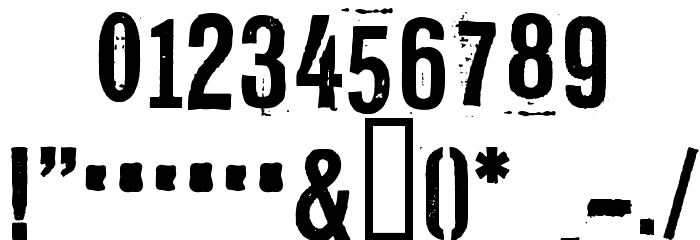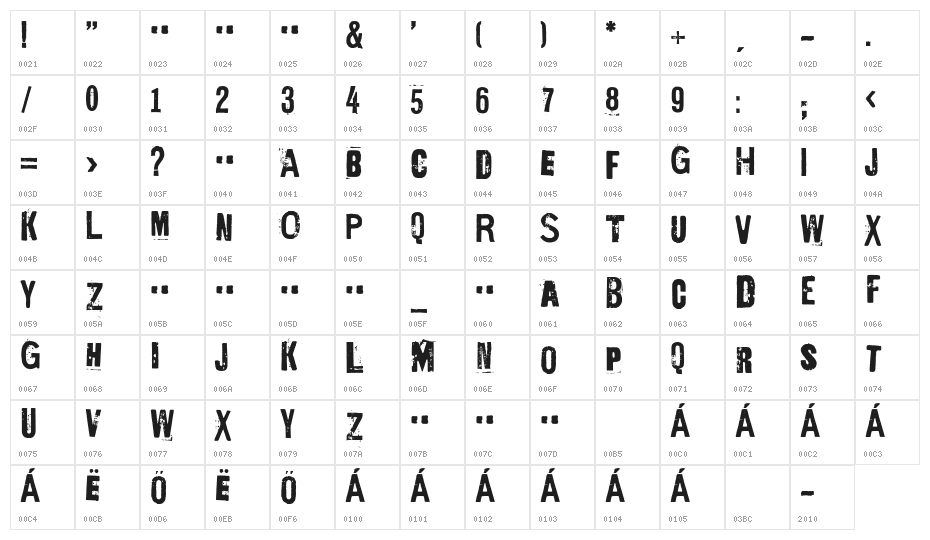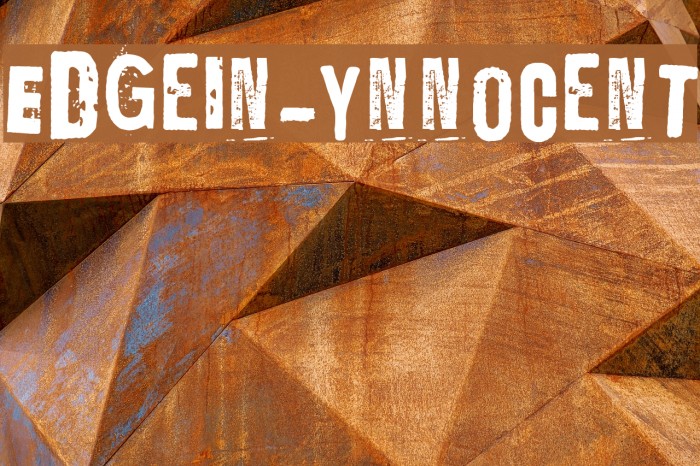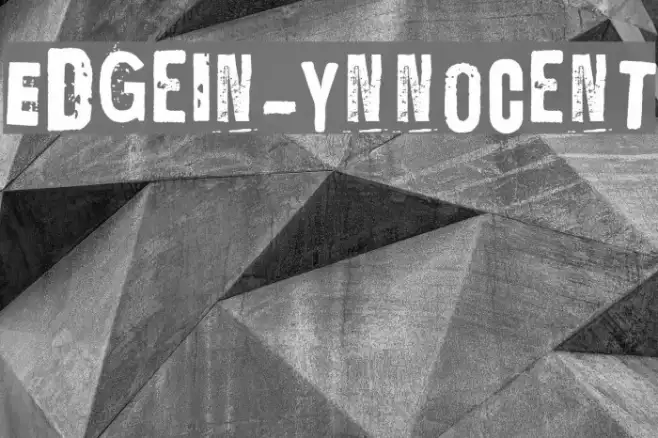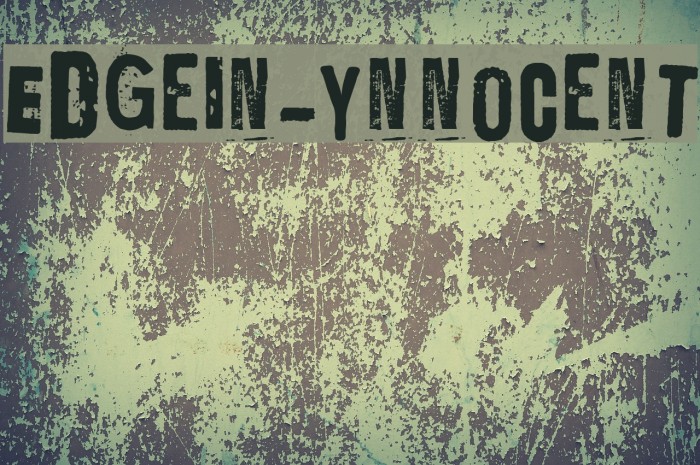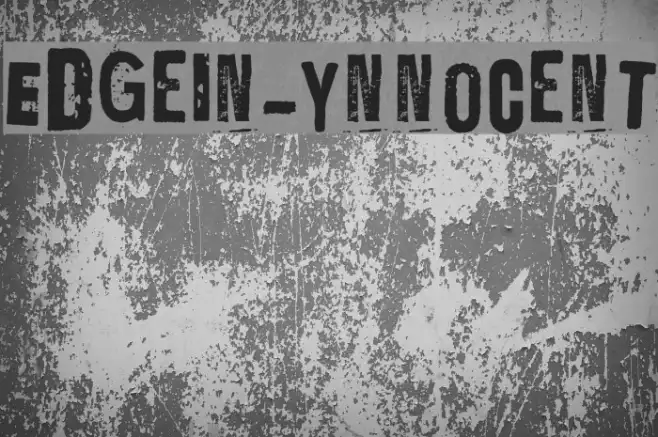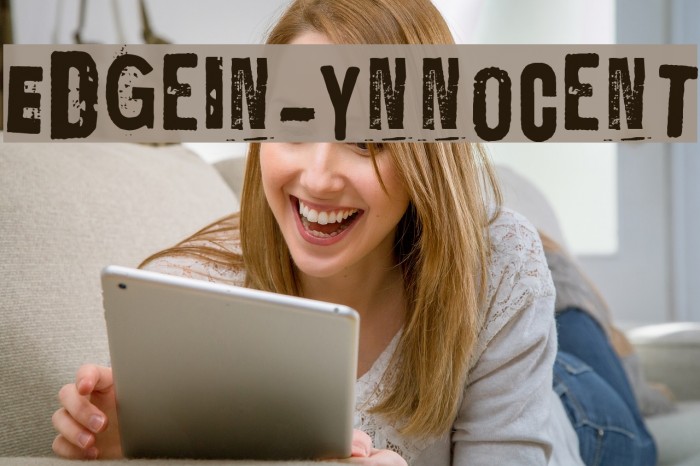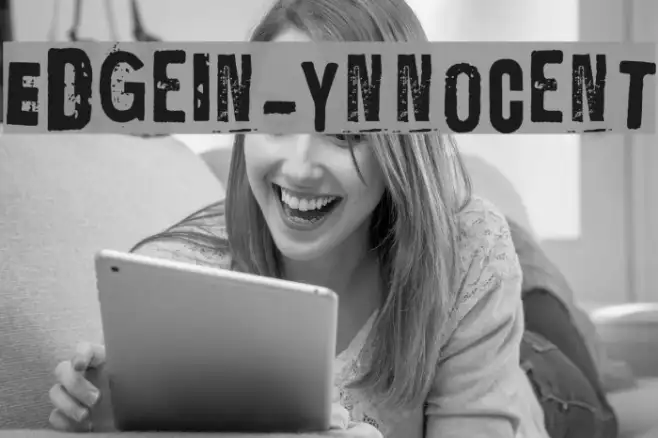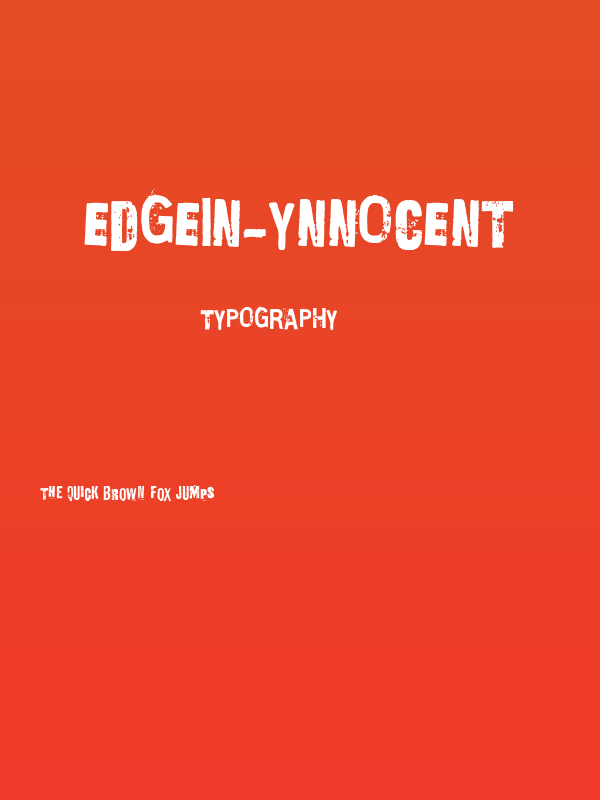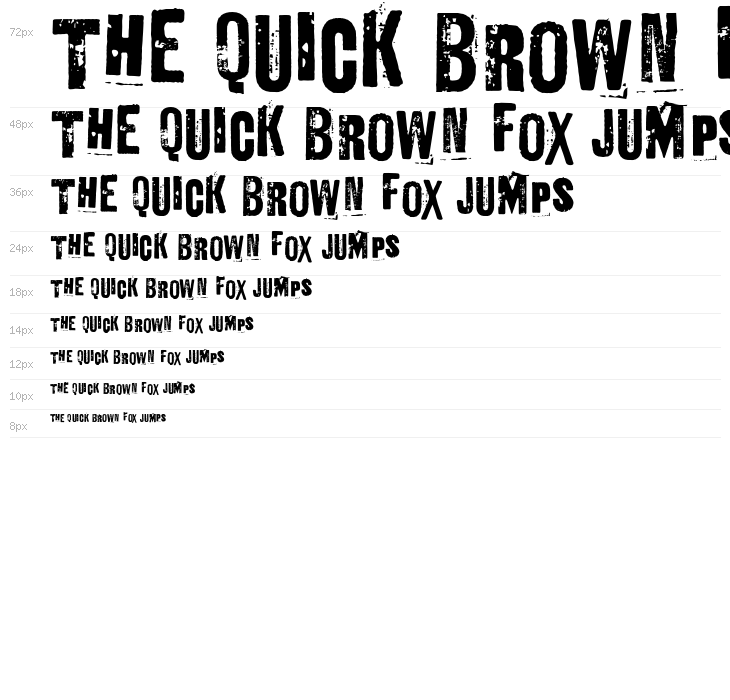
EdGein-Ynnocent Font
EdGein-Ynnocent Description
This font features a bold, distressed style with a grunge aesthetic, characterized by rough edges and a worn texture. The uppercase letters are prominent and impactful, while the numbers and special characters maintain the same rugged appearance. The font's design suggests a sense of urgency and rawness, making it ideal for projects that require a strong visual impact. The irregularities in the letterforms add to its unique charm, making it suitable for creative and unconventional designs.
| Overall Style | Grunge, Distressed |
| Proposed Projects | Ideal for posters, album covers, street art designs, and edgy branding projects. |